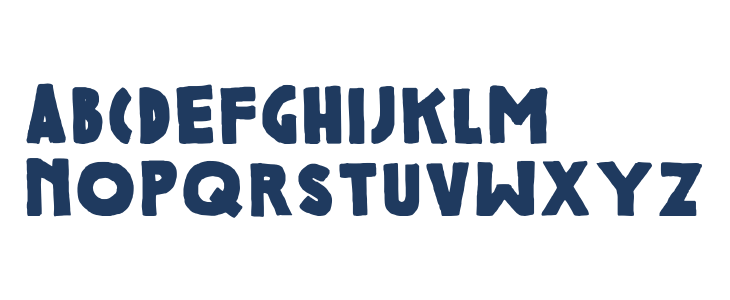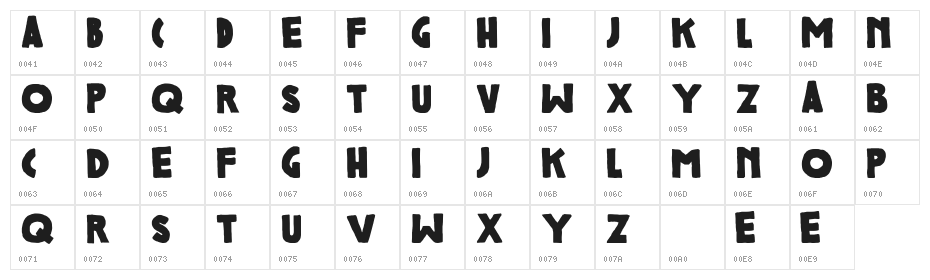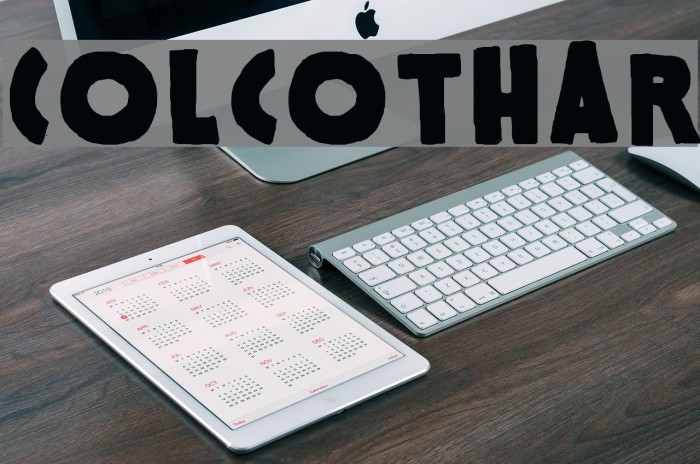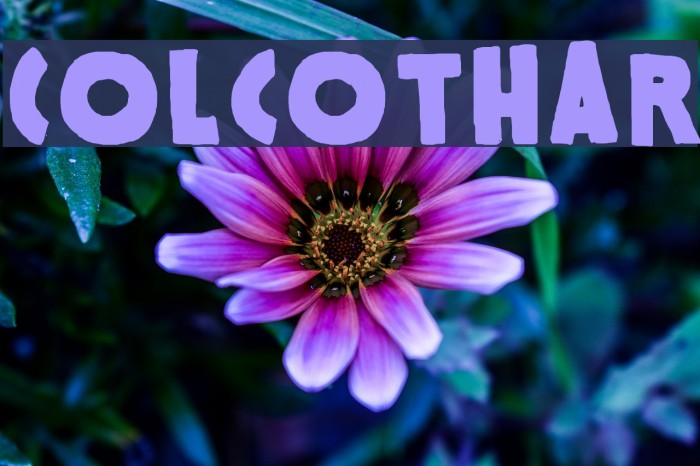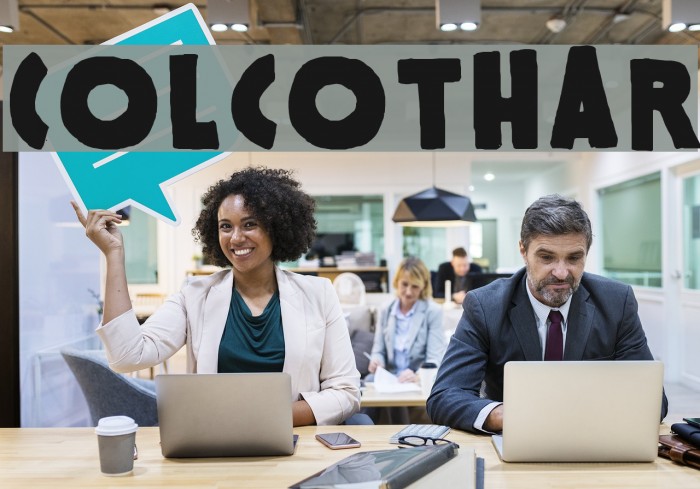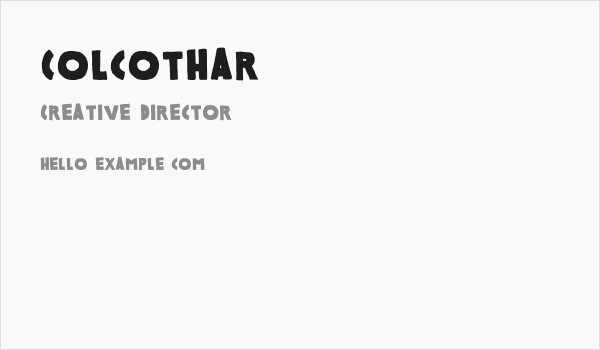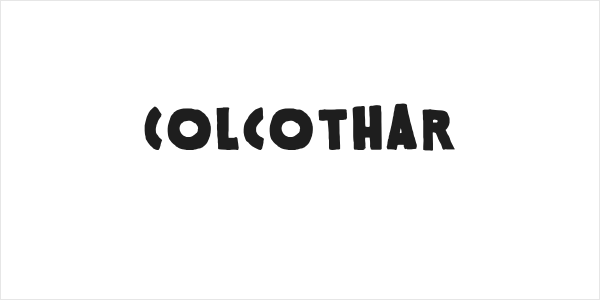
Colcothar Font
Colcothar Description
This font features a bold and rugged style with a hand-drawn appearance. The characters are thick and slightly irregular, giving them a unique, organic feel. The uppercase letters are prominent and assertive, while the lowercase letters maintain the same boldness, ensuring consistency throughout. The overall design is reminiscent of vintage or retro styles, making it suitable for projects that require a strong, impactful visual presence. The font's distinctive look is ideal for creating eye-catching headlines or logos that need to stand out.